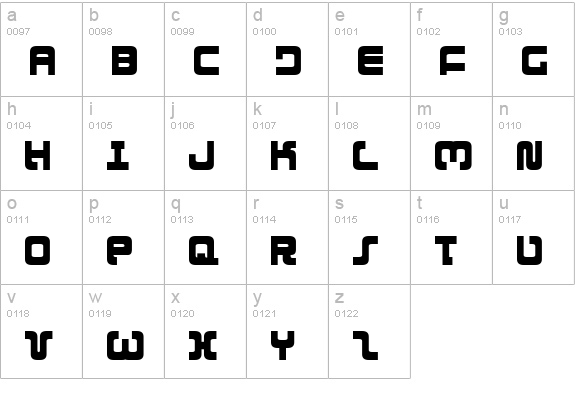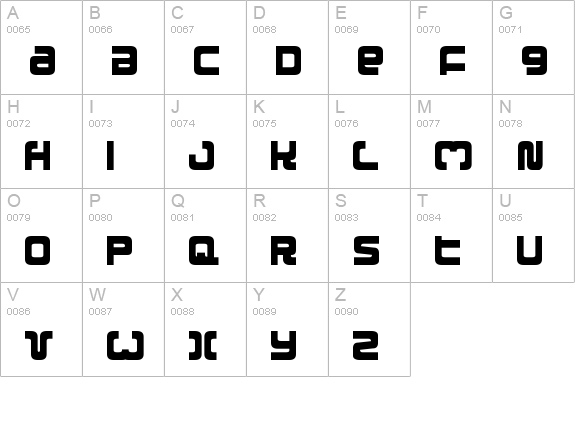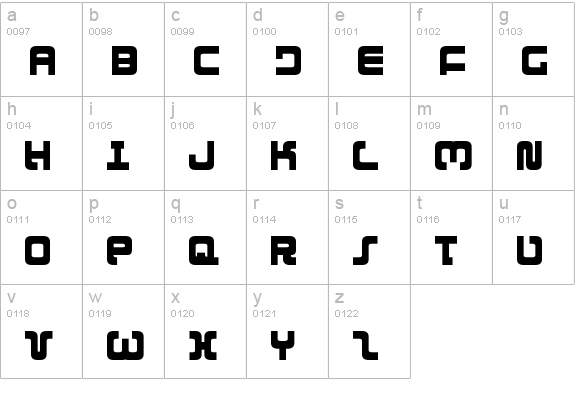
Exedore Condensed is a distinctive, condensed-width variant in the Exedore typeface family \xE2\x80\x94 well suited to design and typography projects.
Exedore Condensed is a sleek and modern font that exudes elegance and sophistication. With its clean lines and contemporary style, this font is perfect for a wide range of design projects, from branding to editorial layouts. Its condensed form allows for efficient use of space while maintaining readability and impact. The Exedore Condensed font is not only aesthetically pleasing but also highly versatile, making it suitable for both print and digital applications. Whether you're designing a poster, website, or logo, this font will elevate your project to the next level. The best part? Exedore Condensed is available for free download at FontsMarket.com. Now you can access this premium font without any cost, allowing you to enhance your designs without breaking the bank. Don't miss out on this opportunity to add Exedore Condensed to your font collection and take your projects to new heights of creativity and professionalism.